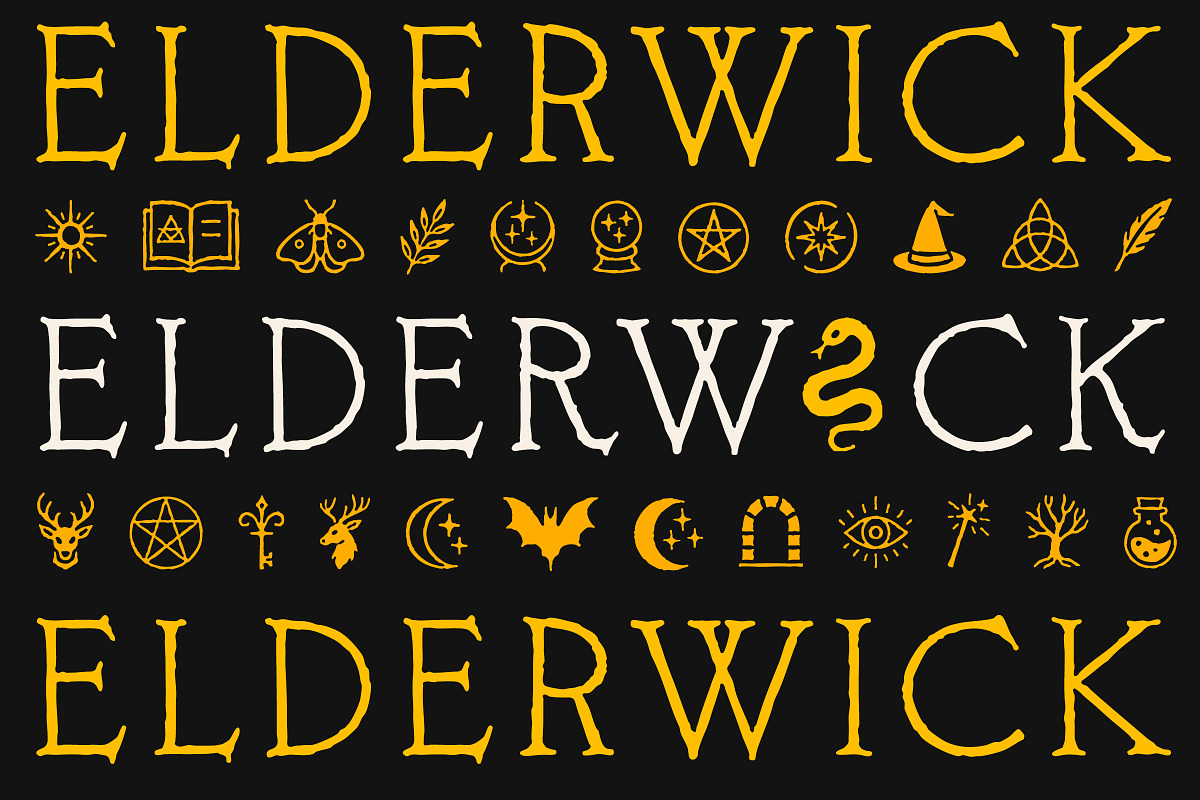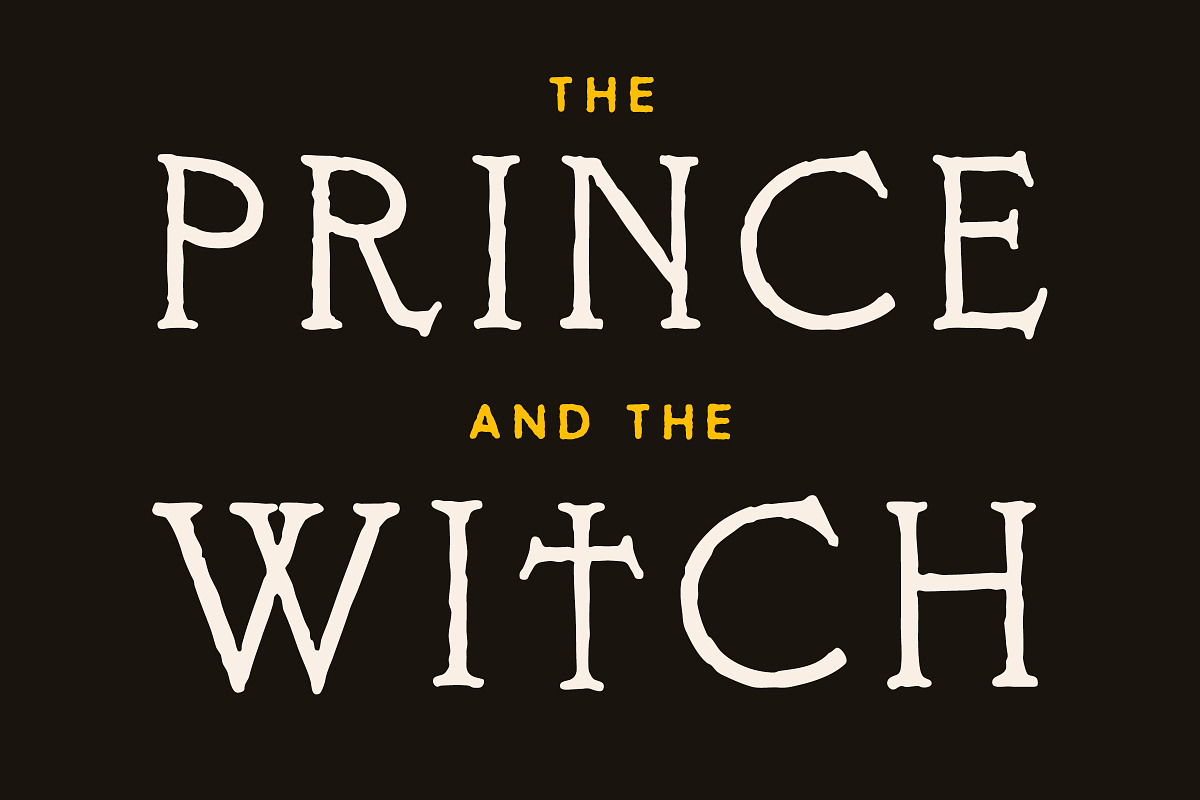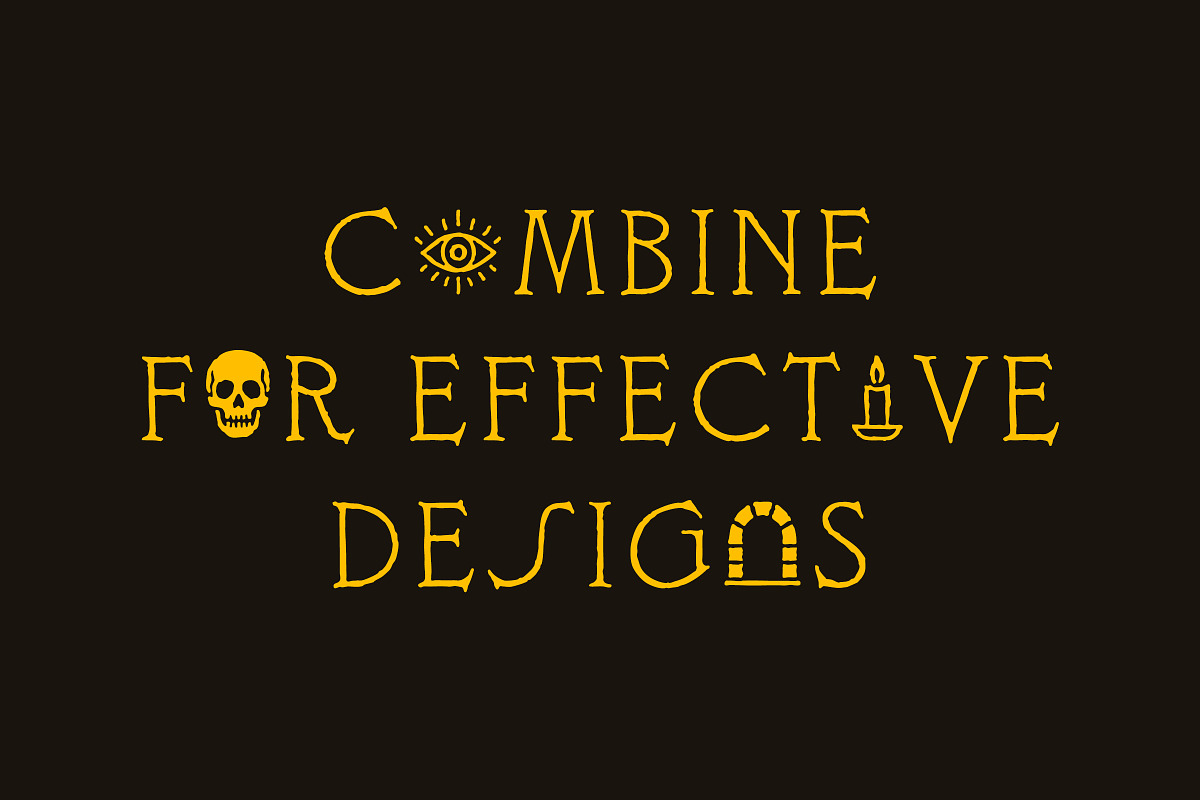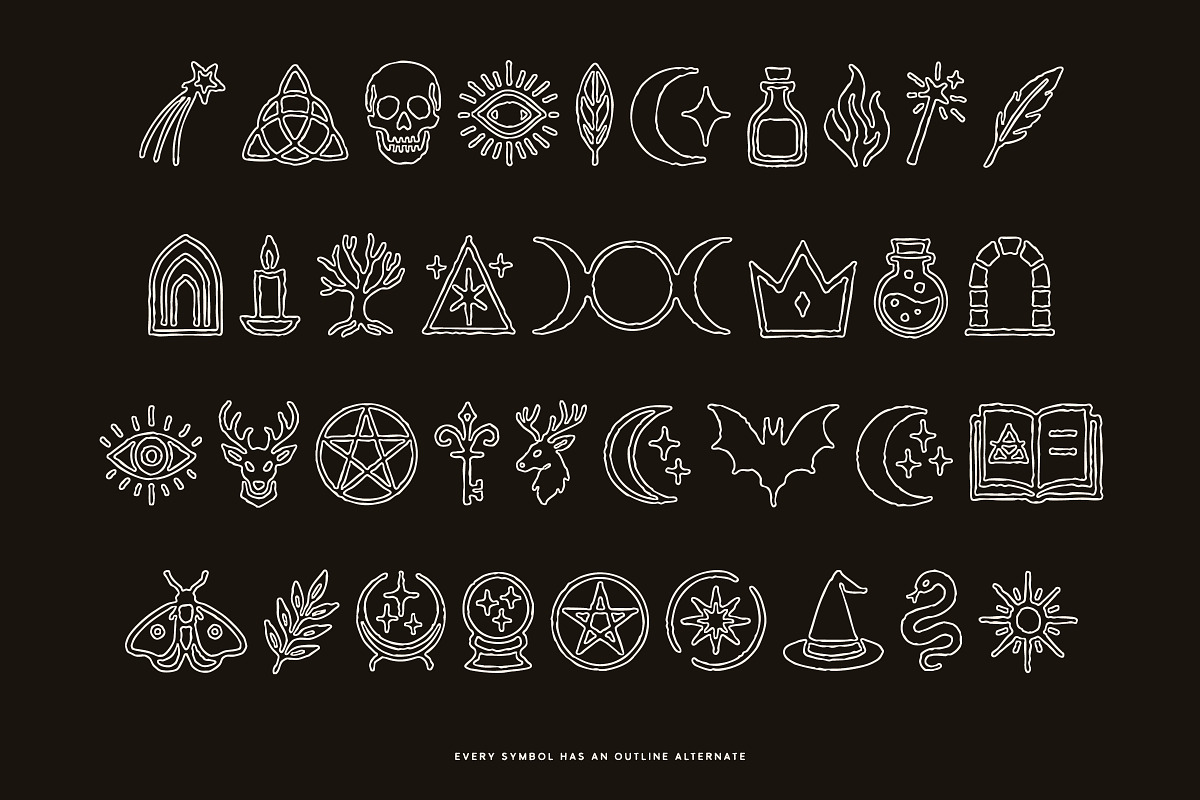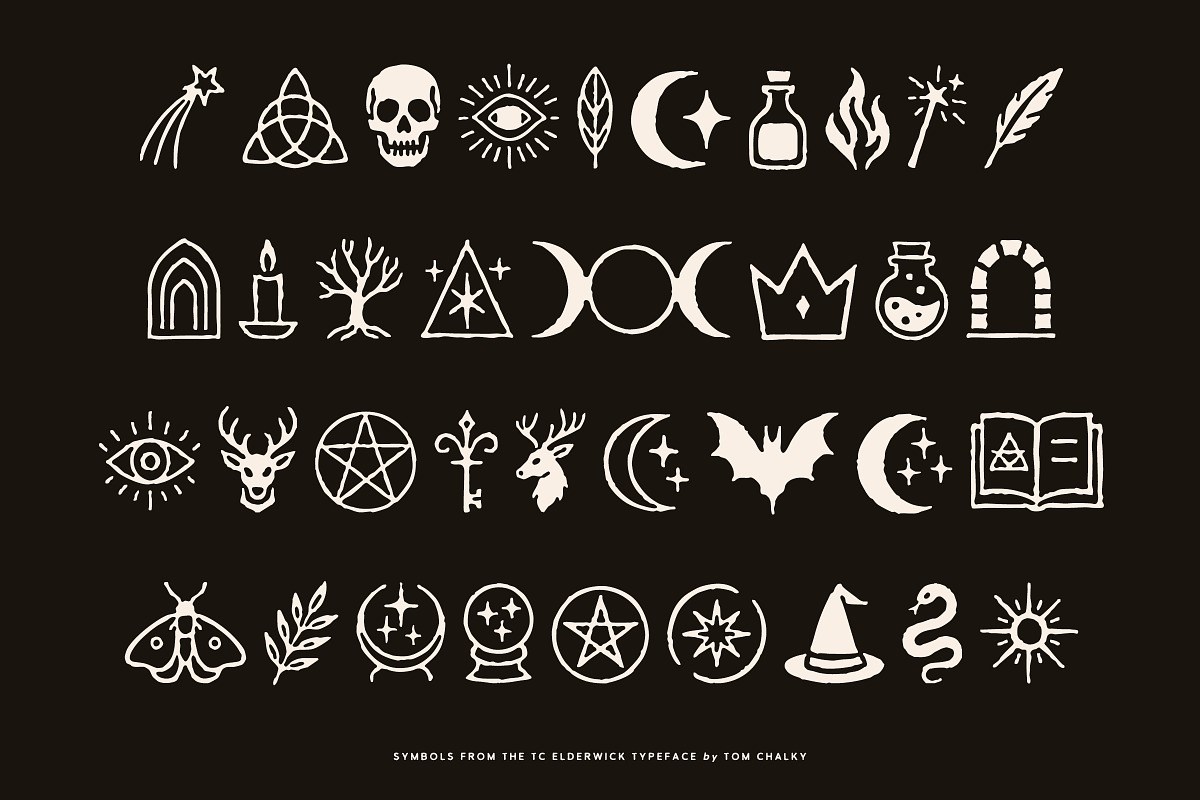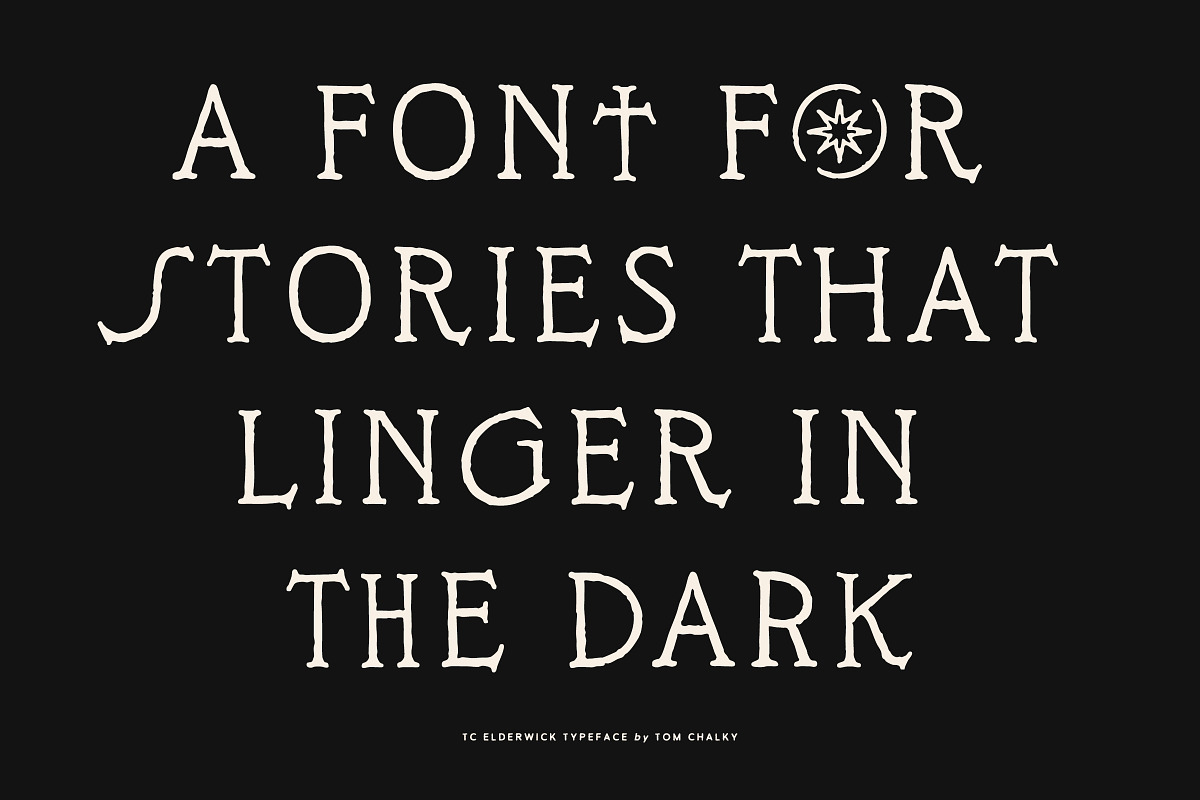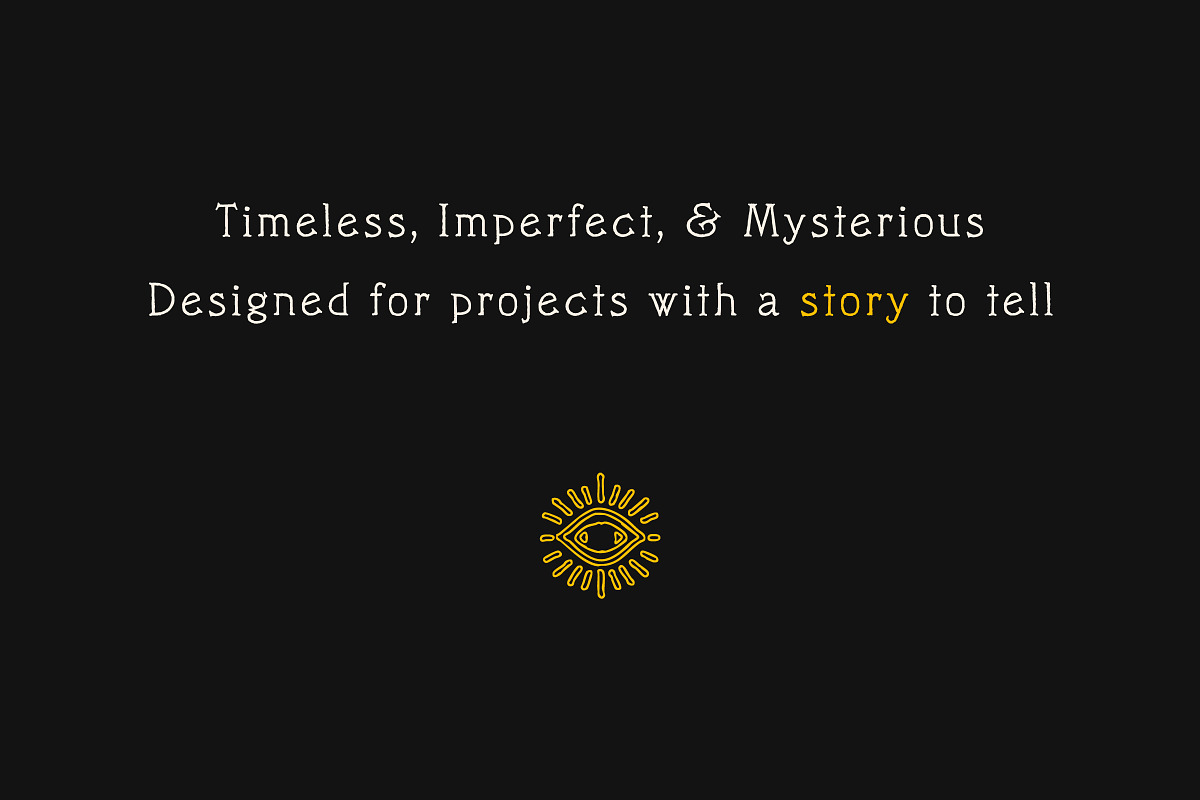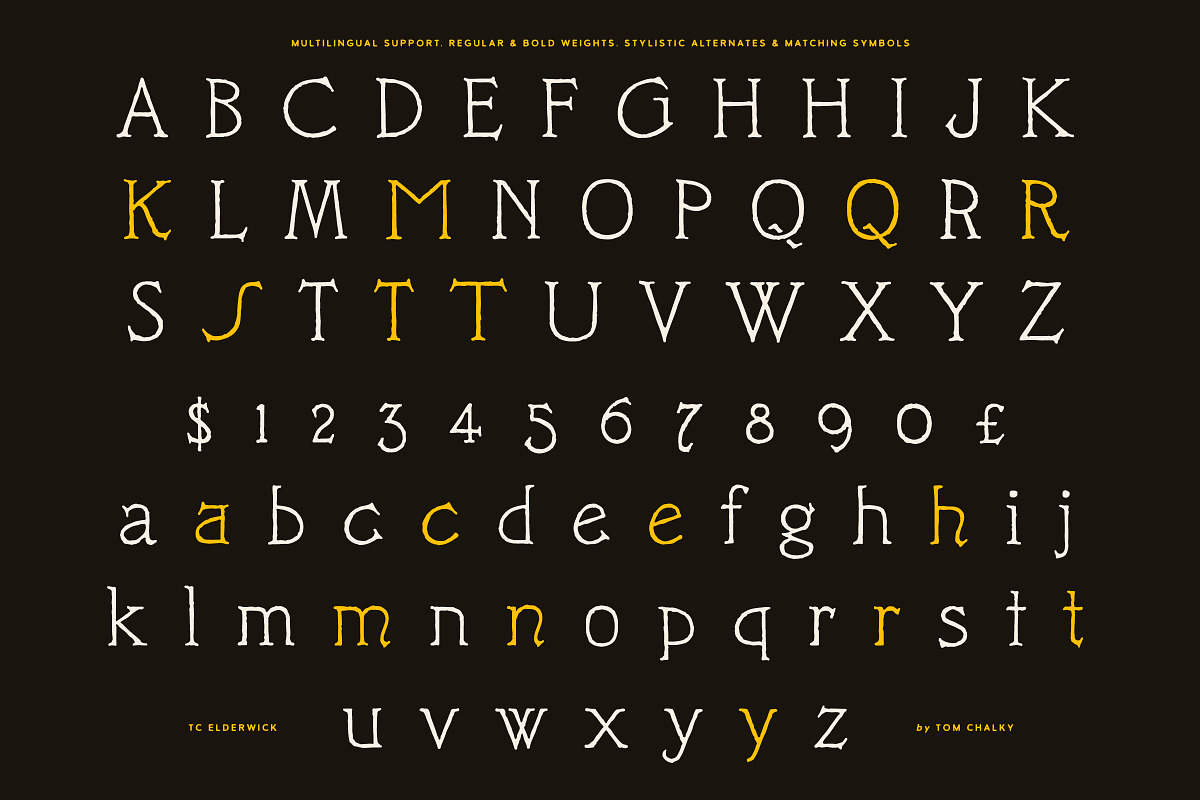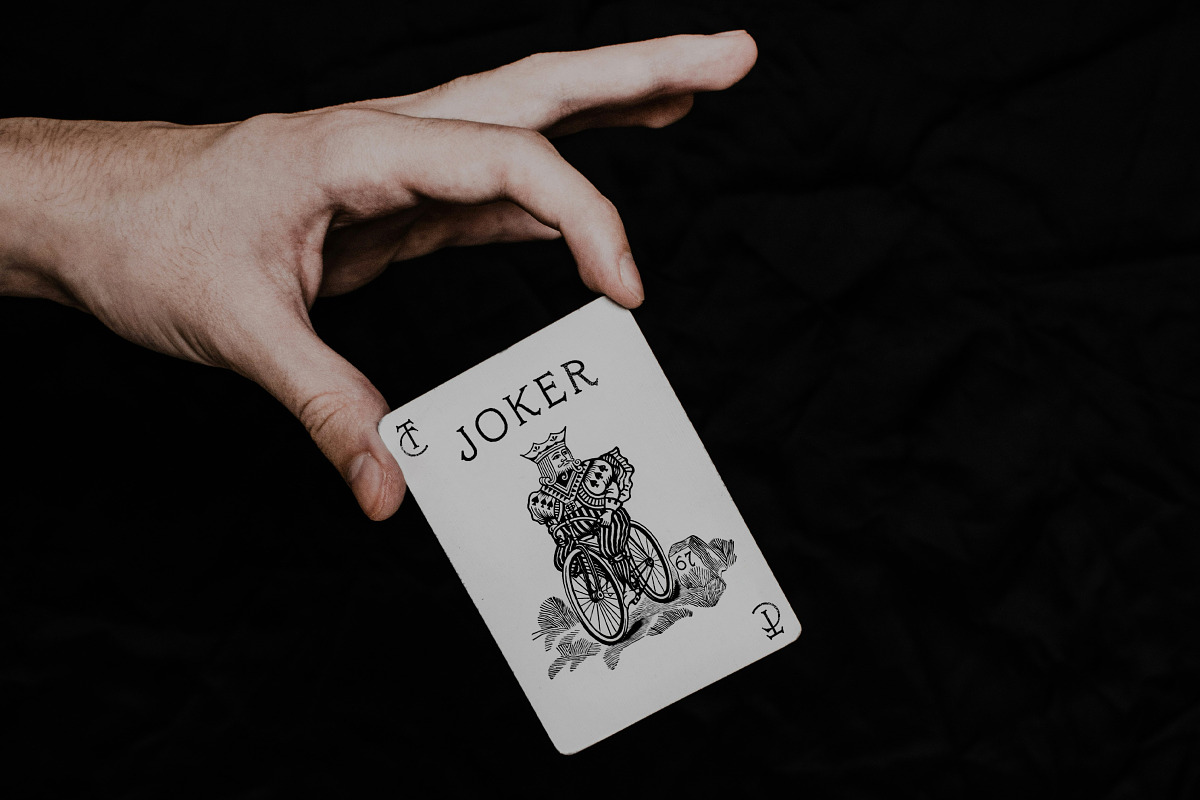
Elderwick - Fantasy Serif & Symbols!
Meet Elderwick – a hand-drawn serif typeface with a touch of mystery and old-world charm
Timeless, slightly imperfect, and full of handcrafted character, Elderwick is perfect for projects with a story to tell – book covers, fantasy-inspired branding, packaging, social media, invitations, merchandise, and so much more. The unique letterforms and enchanting symbols make it easy to create cohesive, eye-catching designs without overthinking it.
- TC Elderwick (Regular and Bold) with stylistic alternates and full Latin multilingual support
- TC Elderwick Symbols (Regular and Bold) with both solid and outline styles
If you’re working on a dark fairytale, a witchy brand, or any project that needs a little extra magic, Elderwick is the perfect mood setter.